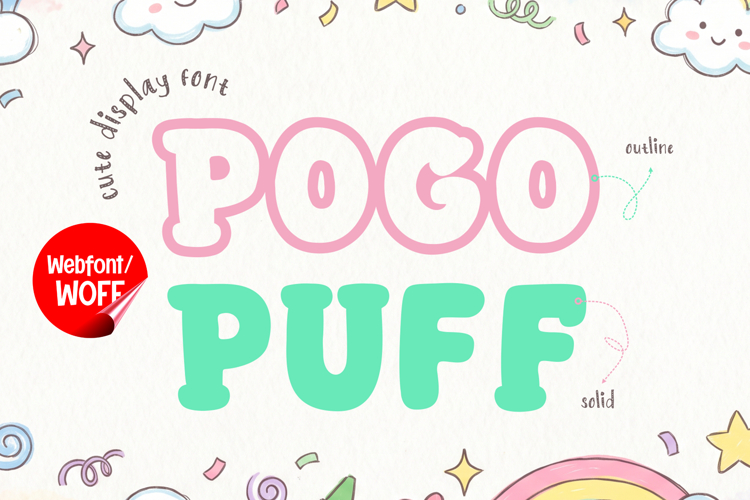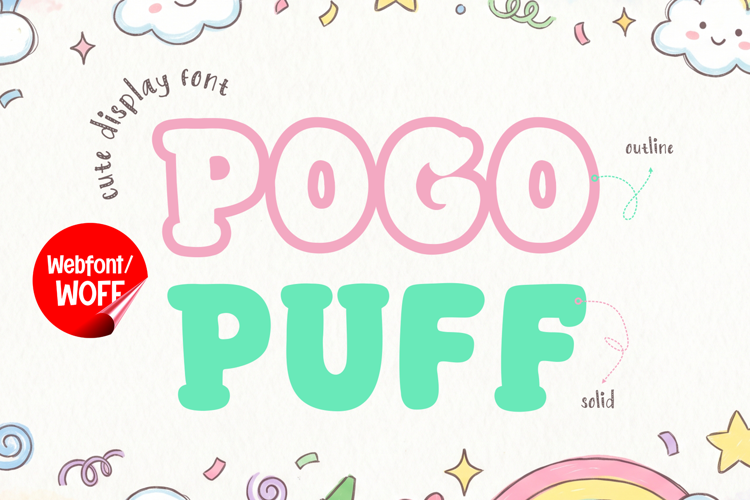
Pogo Puff - Webfont Cute Rounded Display for Websites
Pogo Puff Webfont is a delightful and playful typeface designed to bring warmth and personality into modern website design. Built specifically for digital use, this font combines soft rounded shapes with a cheerful aesthetic, making it perfect for websites that aim to feel friendly, approachable, and engaging.
In the digital world, first impressions matter—and typography plays a key role in capturing user attention. Pogo Puff is crafted to function beautifully as a headline font for landing pages, hero sections, and promotional banners. Its bold yet soft letterforms instantly draw the eye, making it an excellent choice for highlighting key messages and brand identity.
The webfont version includes both outline and solid styles, giving designers flexibility when creating layered and interactive web elements. The outline style works perfectly for decorative headings, hover effects, or playful UI accents, while the solid version ensures strong readability and visual impact for main titles.
The font is especially suitable for websites targeting family-friendly audiences, kids brands, creative businesses, and lifestyle products. It works well for e-commerce stores, landing pages, blog headers, and digital campaigns that require a fun and welcoming tone.
One of the strengths of Pogo Puff in web design is its ability to create emotional connection. Its soft curves and rounded shapes evoke a sense of friendliness and positivity, encouraging users to stay longer and interact more with the content. This is particularly important for conversion-focused pages where engagement plays a crucial role.
Designers can pair Pogo Puff with clean sans-serif fonts for body text to maintain readability while keeping headlines visually engaging. This contrast creates a balanced hierarchy and improves overall user experience.
The font also performs well in interactive environments. When combined with animations such as fade-ins, hover transitions, or scrolling effects, Pogo Puff adds a dynamic and lively feel to the website. This enhances storytelling and creates a memorable browsing experience.
Pogo Puff is not just decorative—it is functional. Its clear letterforms ensure that messages remain readable while still delivering a strong visual identity. This balance makes it a valuable asset for modern web design.
Whether you are building a landing page, creating a promotional banner, or designing a fun user interface, Pogo Puff Webfont helps you communicate your message with clarity and charm. It transforms simple text into engaging visual elements that capture attention and strengthen your brand.